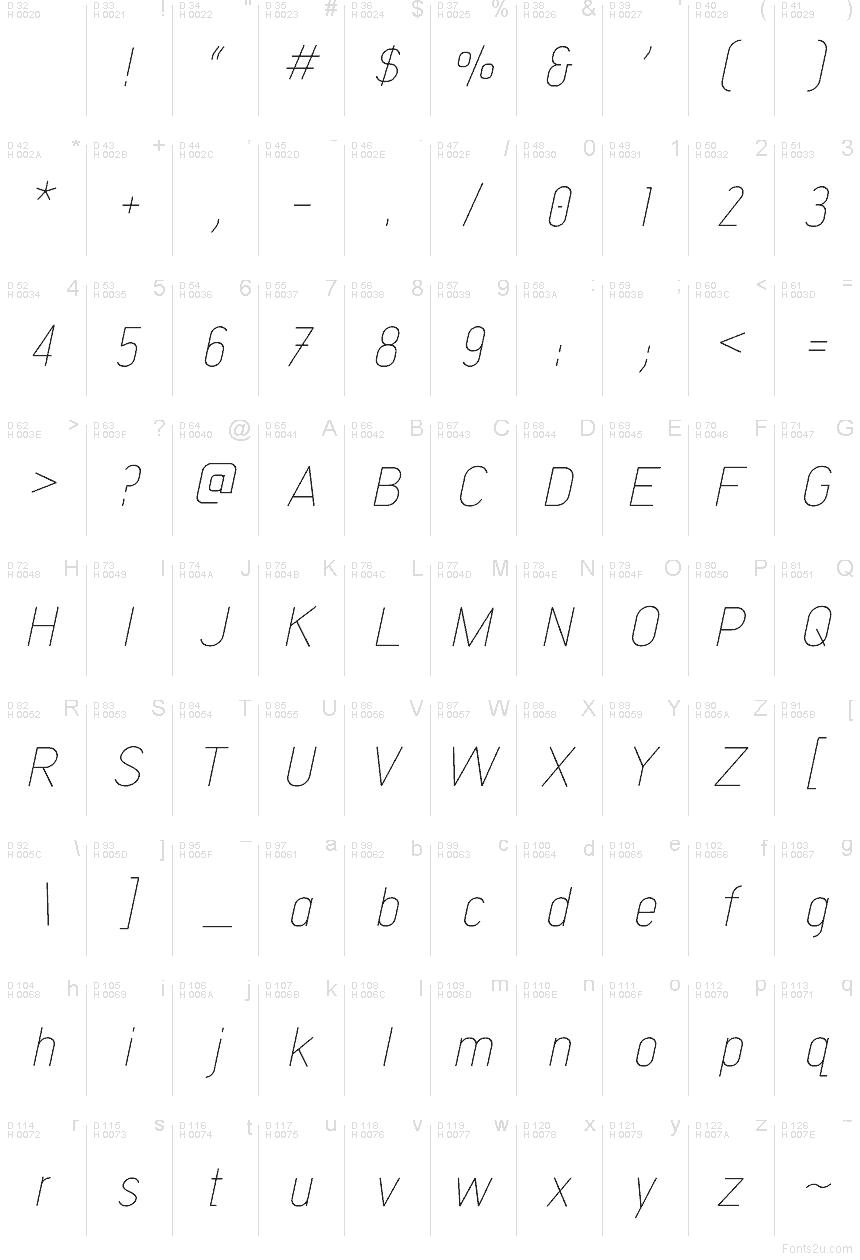
Maneuver Fine Italic
Maneuver Fine Italic font by Mark L of Factus Creative is a free elegant sans serif typeface. This ultra-fine member of the Maneuver family glides across the page with a light, almost inky-wire stroke, clean curves, and a relaxed italic angle that feels both technical and graceful. The generous letterspacing gives every word room to breathe, so even at larger sizes it stays airy instead of shouting.
Using Maneuver Fine Italic, you get a refined, whisper-thin voice that shines on fashion branding, boutique logos, editorial covers, minimalist posters, portfolio sites, and sleek packaging. The consistent weight and subtle slant add movement without clutter, making this free font a natural fit for designers chasing a modern, high-end feel. Try pairing it with a sturdy geometric sans or a neutral grotesk in regular weight to anchor long text beneath those delicate headlines.